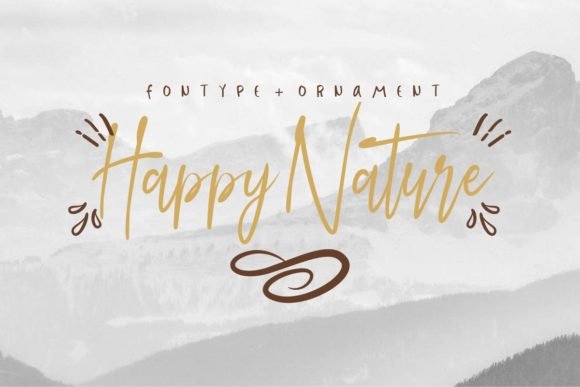
Unleashing Creativity with Happy Nature Font
Have you ever been stuck on a design project, struggling to find the perfect font to convey the right emotions? You’ve poured over fonts, scrolling through endless options, but nothing seems to capture the essence of your vision. That’s when it hits you – the perfect font that brings your design to life.
Enter Happy Nature Font, a beautiful script handwriting font that’s about to revolutionize your design workflow. This stunning font features playful ornaments that add a touch of sophistication to any project. Whether you’re working on a branding campaign, a social media graphic, or a wedding invitation, Happy Nature Font is the perfect addition to elevate your design.
As a designer, you know the value of a great font can make all the difference. Happy Nature Font is not just a font, but a tool to help you convey your message with style and emotion. With its unique blend of playfulness and sophistication, Happy Nature Font is sure to become your go-to font for all your design needs.
Key Features of Happy Nature Font
- Font Family: Happy Nature Font comes in 4 different font styles: Regular, Italic, Bold, and Bold Italic.
- Character Set: The font includes a wide range of characters, including Latin, Cyrillic, and Greek alphabets, as well as punctuation and symbols.
- Unique Characteristics: The font features a natural, hand-drawn design with subtle imperfections, giving it a warm and inviting feel.
Happy Nature Font Review
Overall, I think the Happy Nature Font has a lot going for it ✨. The design is playful and whimsical, making it perfect for any project that needs a touch of natural charm. The font’s unique character set and custom illustrations add a personal touch that can help to establish a brand’s personality.
The font’s versatility is also a major plus ✨. It can be used for a wide range of projects, from children’s books to eco-friendly product labels. The font’s natural and earthy feel makes it an excellent choice for any project that needs to convey a sense of sustainability or environmental awareness.
While the Happy Nature Font is a great choice for many projects, there are a few limitations to consider ⚠️. The font’s size and complexity can make it difficult to use in small spaces or on low-resolution screens. Additionally, the font’s unique character set may not be compatible with all operating systems or devices.
Here are a few specific limitations to keep in mind:
- Not suitable for small text or low-resolution screens
- May not be compatible with all operating systems or devices
- Limited character set and symbol availability
Overall, I think the Happy Nature Font is a great choice for projects that need a touch of natural charm. While it may have some limitations, the font’s unique design and versatility make it a valuable addition to any designer’s toolkit.
Tips for Getting the Most Out of Happy Nature Font
Use Happy Nature Font in designs that evoke a sense of nature, such as:
- Outdoor advertising
- Environmental branding
- Wildlife conservation campaigns
Experiment with different font sizes, colors, and styles to create a unique and eye-catching design.
What is the recommended font size for using Happy Nature Font?
The recommended font size for Happy Nature Font varies depending on the design context. For body text, use a font size between 12-14 points. For headings, use a font size between 18-24 points. You can adjust the font size based on your design needs and the desired visual impact.